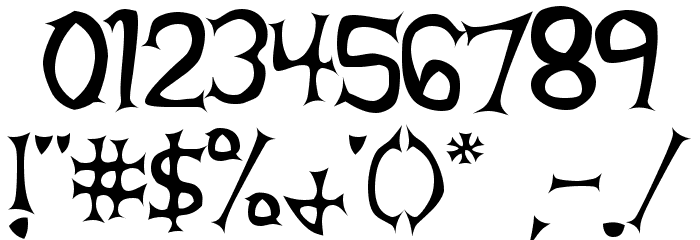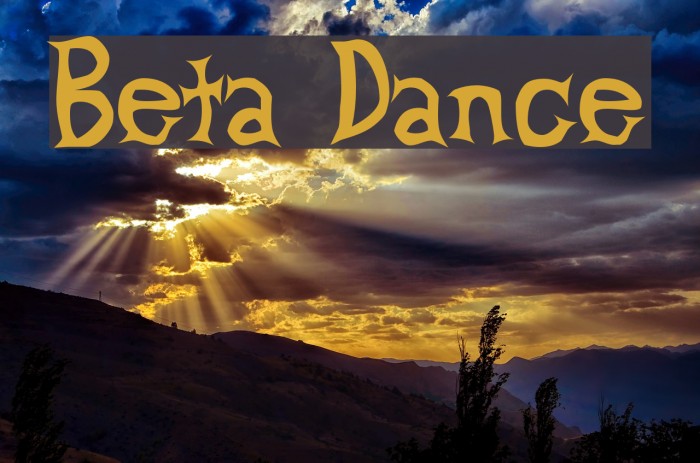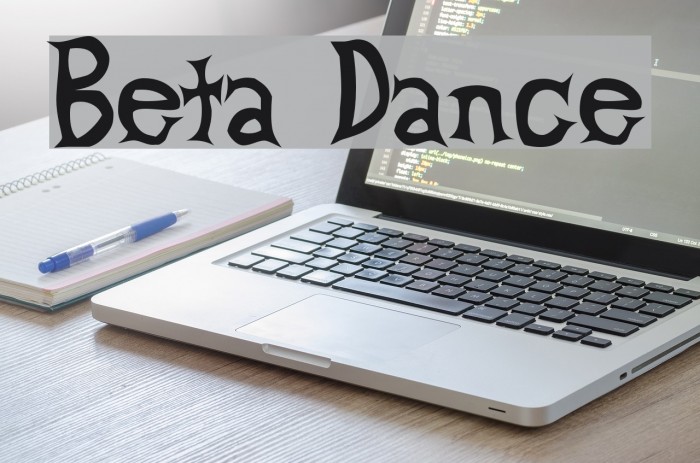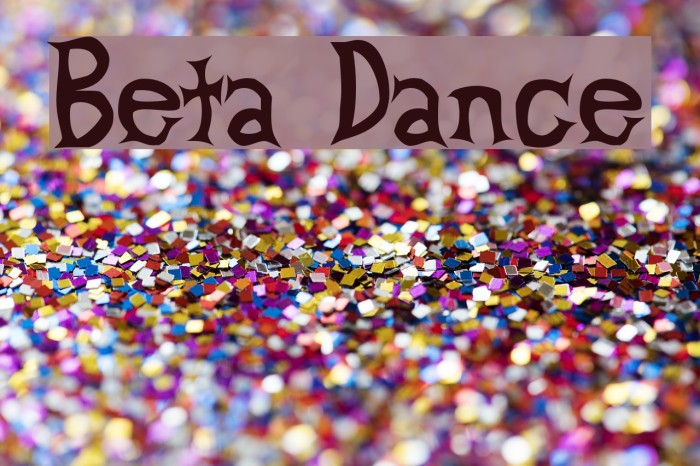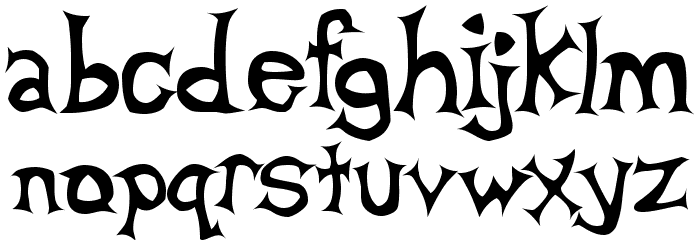
Beta Dance Font
This font features a dynamic and whimsical style, characterized by its bold and exaggerated strokes that create a sense of movement and energy. The letters have a playful, almost dance-like quality, with varying line thicknesses and unique, angular shapes. The uppercase and lowercase letters maintain a consistent style, with sharp edges and a slightly gothic influence. The numbers and special characters follow the same energetic design, making the font suitable for creative and artistic projects. Its distinctive appearance makes it stand out, ideal for capturing attention.
| Proposed Projects | Ideal for creative projects such as posters, album covers, event invitations, and branding that requires a bold and artistic touch. |